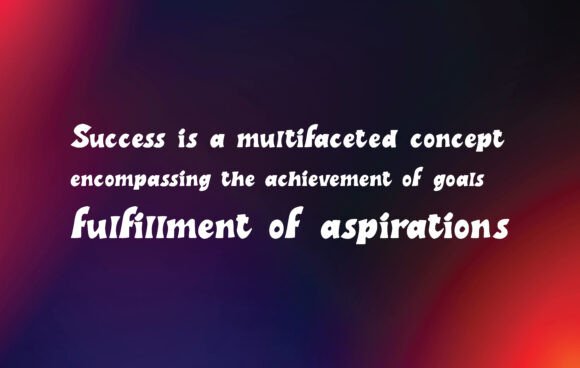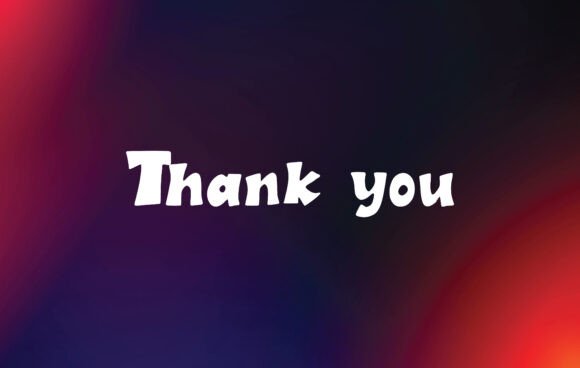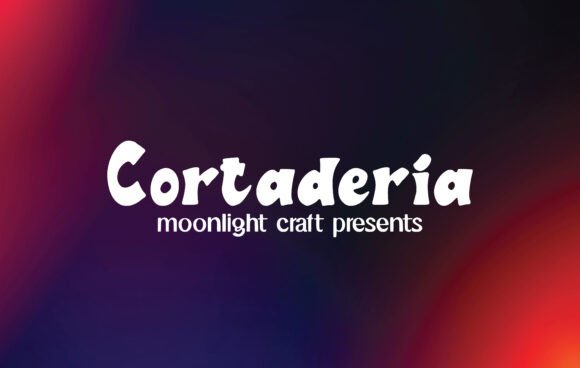
Cortaderia Font: Elevate Your Creative Projects with Elegance
In the world of typography, a font can make or break the visual appeal of a design. For crafters, designers, and creative enthusiasts, finding the perfect font is akin to discovering a treasure trove of possibilities. Cortaderia Font is one such gem that has the potential to transform your creative ideas into stunning realities. This lovely and beautiful handwritten font is designed to take your projects to the highest level, making it an ideal choice for creating eye-catching logos, branding, and quotes.
The Beauty of Cortaderia Font
Cortaderia Font boasts a unique, handwritten charm that sets it apart from other fonts. Its elegant and fluid strokes exude a sense of sophistication, making it perfect for projects that demand a touch of refinement. The font’s versatility is another one of its standout features, allowing it to seamlessly adapt to various design contexts. Whether you’re working on a logo, branding materials, or quotes, Cortaderia Font is sure to impress.
Why Choose Cortaderia Font?
So, what makes Cortaderia Font the go-to choice for designers and crafters? Here are a few compelling reasons:
- Elegance and Sophistication: Cortaderia Font’s refined and polished appearance lends an air of sophistication to any design.
- Versatility: This font can be used for a wide range of projects, from logos and branding to quotes and more.
- Easy to Read: Cortaderia Font’s clear and legible design ensures that your message is conveyed effectively, making it perfect for both digital and print applications.
- Unique and Creative: With Cortaderia Font, you can add a personal touch to your designs, setting them apart from the crowd.
Cortaderia Font is a dream come true for designers and crafters who strive to create visually stunning projects. Whether you’re working on:
- Logos and Branding: Cortaderia Font’s elegant design makes it an excellent choice for creating memorable logos and branding materials.
- Quotes and Typography: This font’s beautiful, handwritten aesthetic adds a touch of warmth and personality to quotes and typography projects.
- Digital and Print Materials: Cortaderia Font’s versatility ensures that it can be used for both digital and print applications, including social media graphics, posters, and more.
Tips for Using Cortaderia Font
To get the most out of Cortaderia Font, here are a few tips to keep in mind:
- Experiment with Colors: Cortaderia Font looks stunning in a variety of colors, so don’t be afraid to experiment and find the perfect hue for your project.
- Play with Sizes: This font’s legibility and elegance make it suitable for use at various sizes, from large headings to smaller body text.
- Mix and Match: Combine Cortaderia Font with other fonts to create a unique and visually appealing typography scheme.
In conclusion, Cortaderia Font is a beautiful and versatile handwritten font that has the potential to elevate your creative projects to new heights. Its elegance, sophistication, and versatility make it an excellent choice for designers and crafters looking to create stunning logos, branding materials, quotes, and more. With Cortaderia Font, you can add a personal touch to your designs, setting them apart from the crowd. So why wait? Discover the beauty of Cortaderia Font and take your creative ideas to the next level.